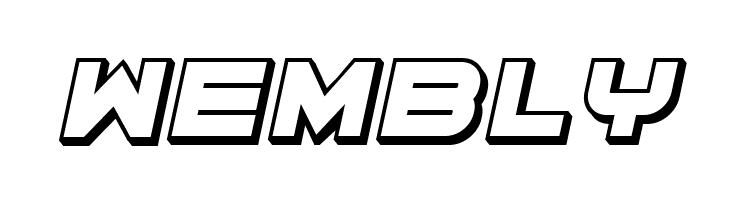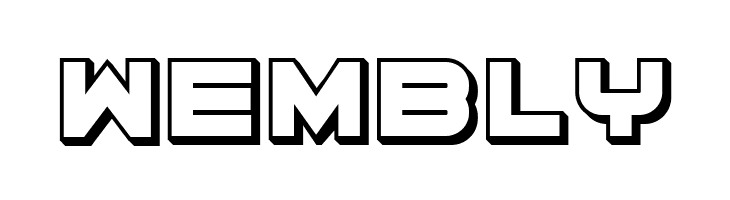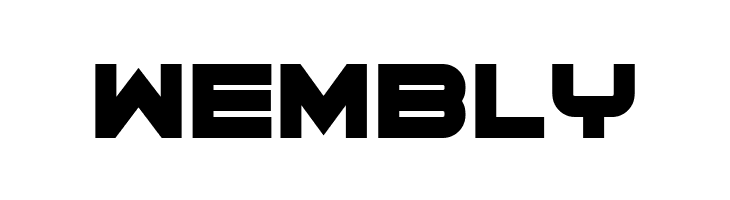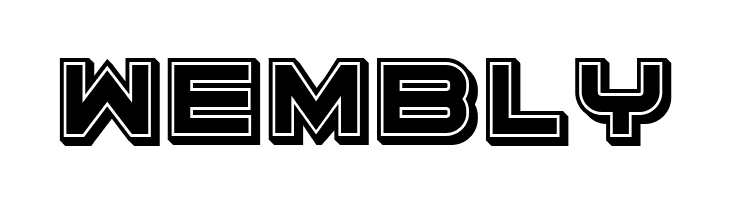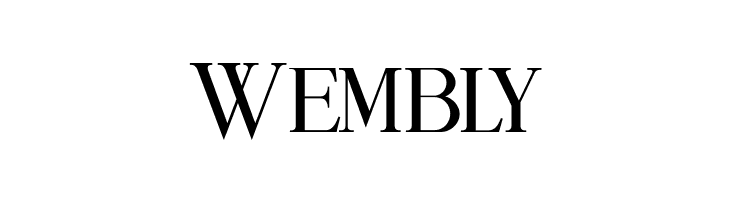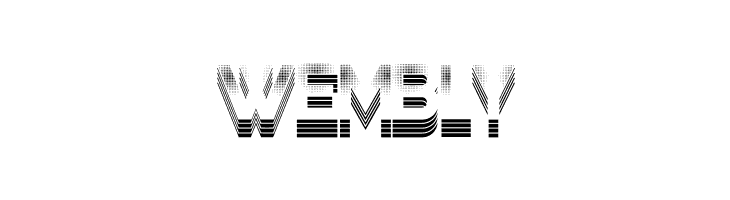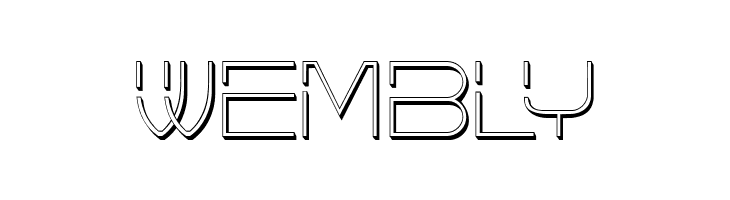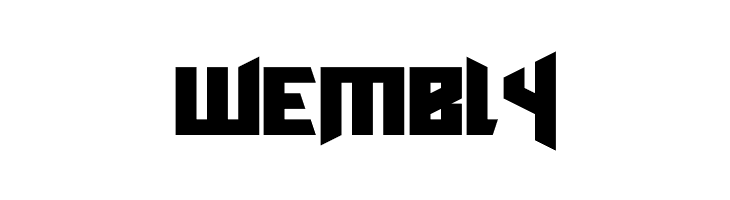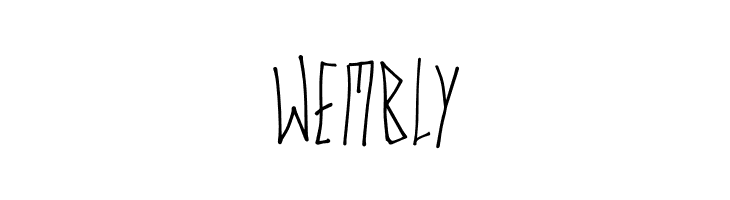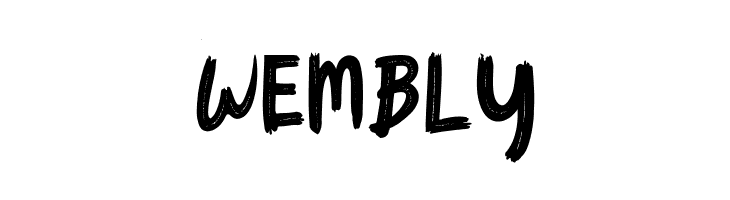
• Cyber Bold Rustique
A bold, geometric font with a futuristic, industrial design.
• Cyber Brush
A bold, brush-style font with an energetic and hand-drawn appearance.
• Cyber Expert Regular
A futuristic, digital-themed font with bold, geometric letters and a layered, striped design.
• Cyber Gloom
A bold, angular font with a futuristic and dynamic design.
• Cyber Hashtags Regular
A classic serif font with elegant strokes and balanced proportions.
• Cyber Princess 3D Filled Italic
A bold, 3D italic font with a futuristic and dynamic style.
• Cyber Princess 3D Filled Regular
A bold, futuristic font with a 3D filled effect and geometric design.
• Cyber Princess 3D Italic
A bold, 3D italic font with a futuristic and dynamic design.
• Cyber Princess 3D Regular
A bold, futuristic font with a 3D effect and geometric design.
• Cyber Princess Italic
A futuristic, italic font with bold, angular characters and a modern aesthetic.
• Cyber Princess Regular
A bold, geometric font with a futuristic and digital aesthetic.
• Cyber Regular
A futuristic, geometric font with a double-line outline style.
• Cyber Tittle
A bold, futuristic font with rounded edges and a geometric design.
• Cyber Trunk
A futuristic, angular font with sharp, geometric lines.
• Cyberbuny's Teaser
Ornamental dingbat set with swirling, floral, and abstract motifs.
• CyberCaligraphic
A dynamic, calligraphic font with a modern twist and elegant flow.
• Cyberchild CE
A futuristic, angular font with sharp edges and geometric shapes.
• Cybercrime 2004 Regular
A futuristic, geometric font with bold, rounded shapes and consistent stroke width.
• CyberDinxx
An illustrative, pictorial font with each character as a unique drawing.
• Cybereye
A bold, playful font with a futuristic, cybernetic design.
• Cyberfall